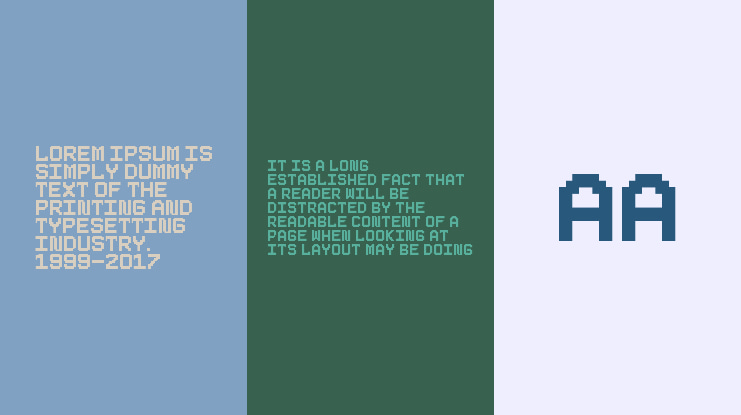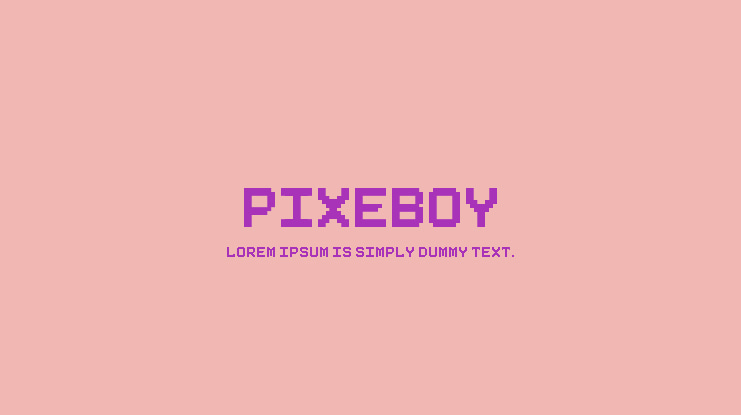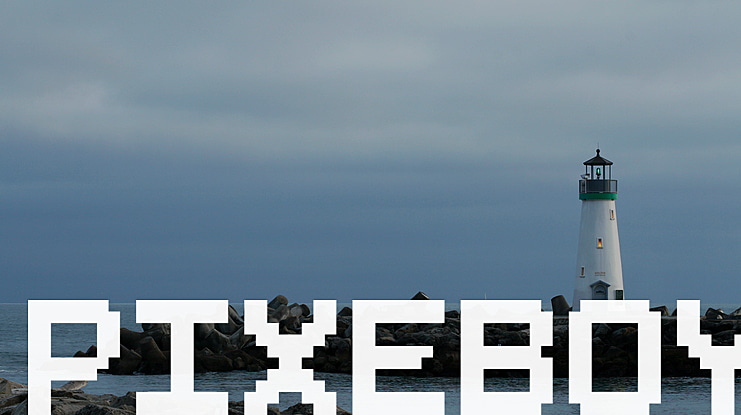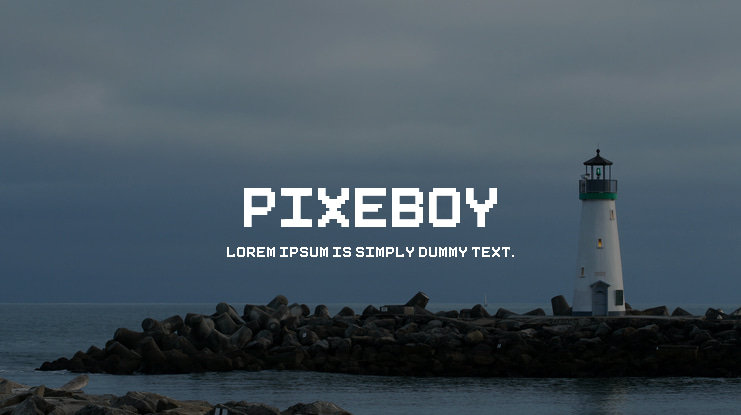
Pixeboy Font
Introducing Pixeboy - A Modern and Unique Display Typeface. Pixeboy is great for any kind of display purpose from logos, Tshirt, apparel, quote, handwritten quotes, product packaging, tittle header, poster, merchandise, social media, labels, branding & greeting cards. The Pixeboy is a pixel style font which comes in allcaps.